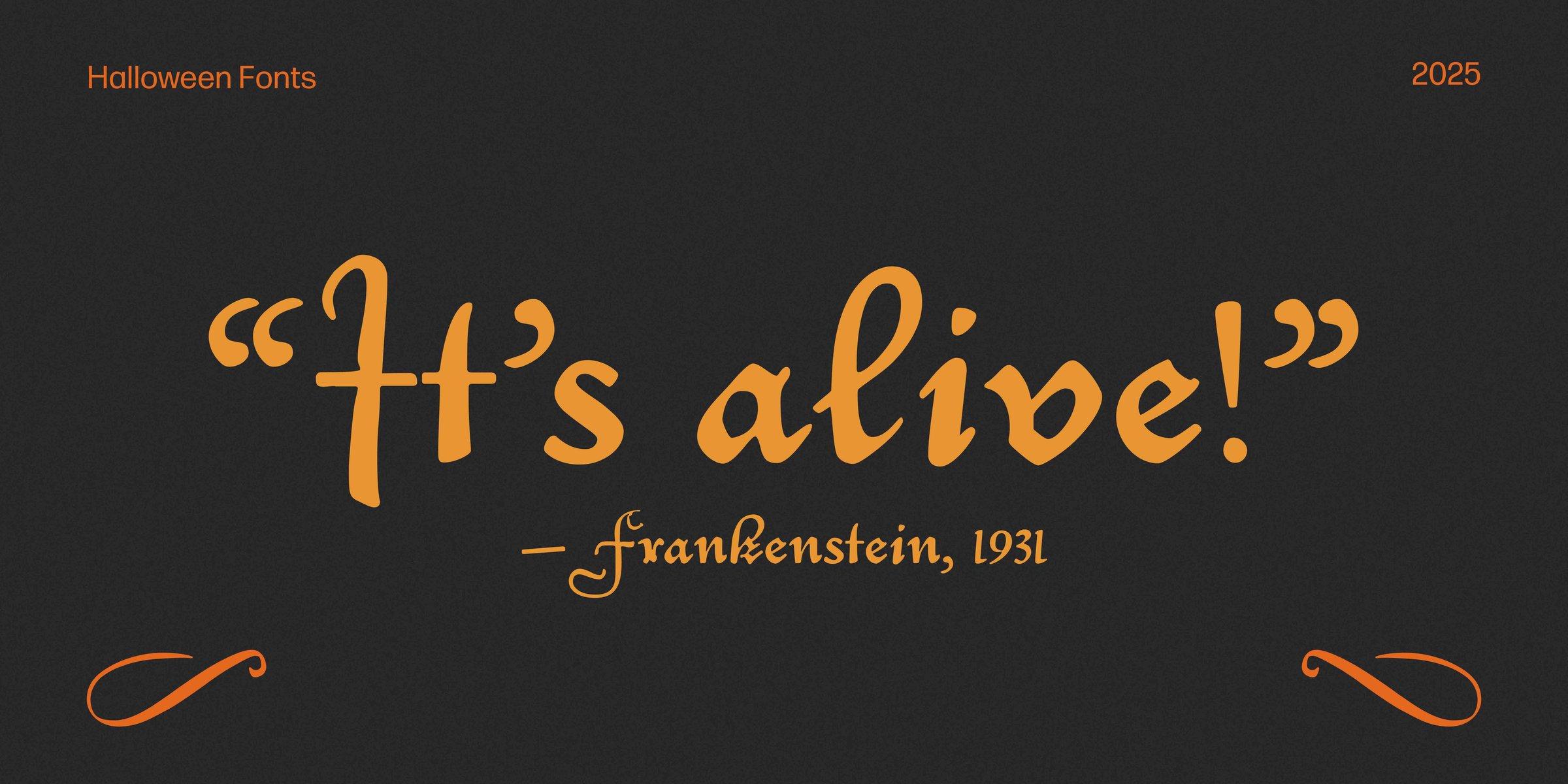
The Dynamic Duo of Richard Starkings and John Roshell founded the Comicraft studio in 1992 to provide top quality lettering & design to the comic book industry. They became known for pioneering the use of computers in the art of comic lettering.
Having appeared in thousands of comic book pages from Avengers to Uncanny X-Men, Comicraft’s spectacular library of 300 Fearless Font Families now save the day in video games, TV shows, movie titles and wherever fun, lively fonts are needed!